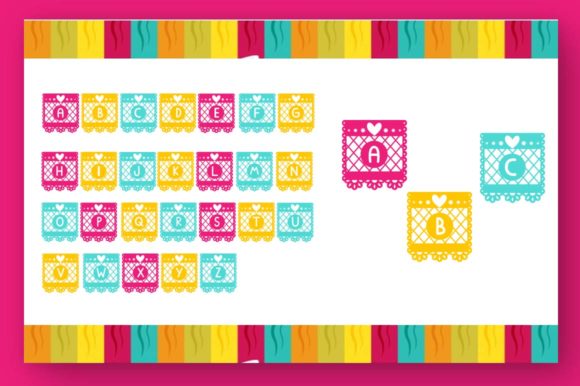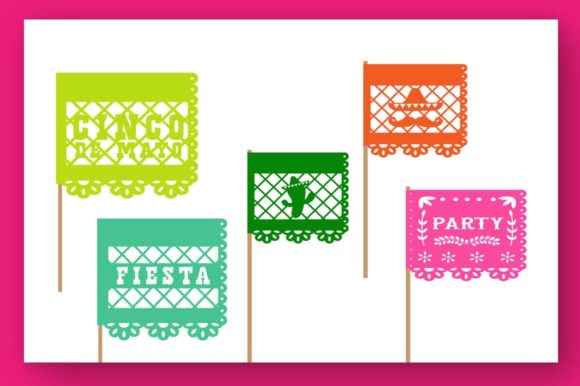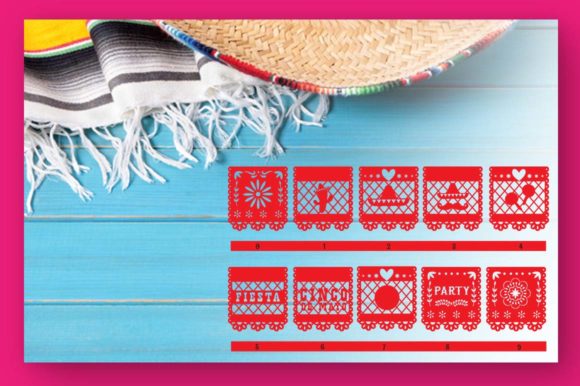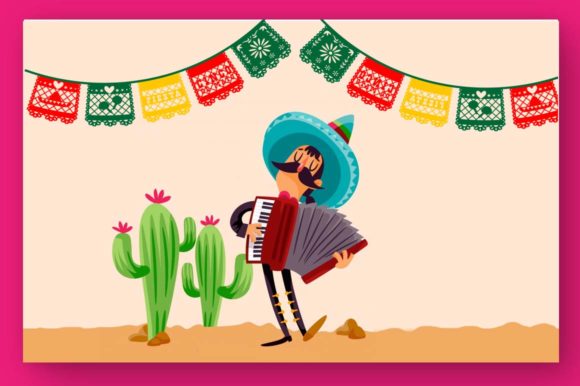
Introduction to Papercut Blocks Font
As a designer, there’s nothing quite like the thrill of stumbling upon a unique design resource that sparks creativity and sets your imagination ablaze. For me, it was a chance discovery of traditional Mexican pickled paper that ignited a passion project – a font that would capture the essence of this beautiful craft. And so, the Papercut Blocks Font was born, a delightful dingbat typography that’s perfect for adding a touch of Mexican flair to your next creative project.
Whether you’re planning a vibrant fiesta-themed party, designing a banner to celebrate a special occasion, or simply looking for a design element to elevate your next project, the Papercut Blocks Font is an invaluable resource. With its transparent background and high-quality design, you can use it to create stunning invitations, posters, or even digital graphics. And the best part? It’s available for free download, making it a must-have for designers of all levels.
- Each block in the font has a transparent background, allowing for seamless integration with various design elements.
- The Papercut Blocks Font includes 100 unique blocks, offering a wide range of creative possibilities for designers.
- The Papercut Blocks Font is a versatile design resource suitable for various creative projects, from digital art to print materials.
Honest Review: Papercut Blocks Font
I recently had the chance to play with the Papercut Blocks Font, and I must say it’s a fantastic addition to my design resource library. One of the things that caught my attention was the high quality of the font, with crisp and clean lines that make it perfect for any creative project.
Here are some of the things that work well with this font:
- ✨ The Papercut Blocks Font comes with a transparent background, making it easy to use as a design element in various backgrounds.
- ✨ The design is versatile and can be used in a wide range of creative projects, from digital art to print design.
- ⚠️ The font may not be suitable for projects that require a lot of text, as it can get a bit crowded.
- ⚠️ The font is quite bold, so it may not be the best choice for projects that require a more subtle design.
Overall, I’m really impressed with the Papercut Blocks Font. It’s a high-quality design resource that can add a unique touch to any creative project. With its transparent background and free download option, it’s definitely worth checking out for any designer looking to spice up their work.